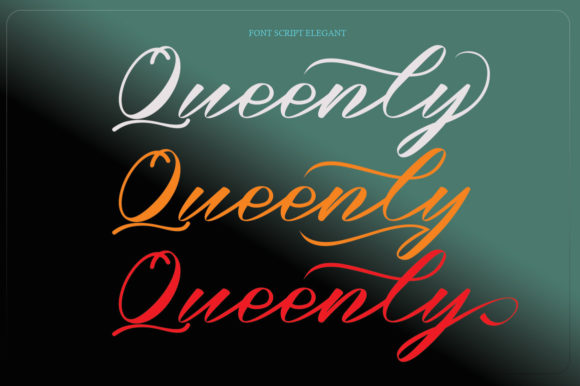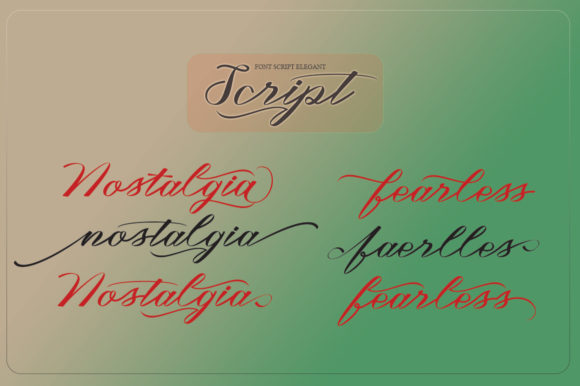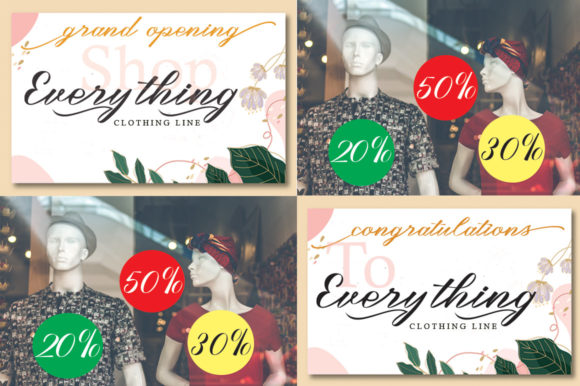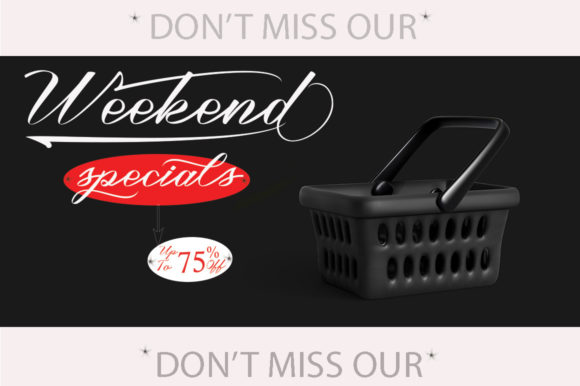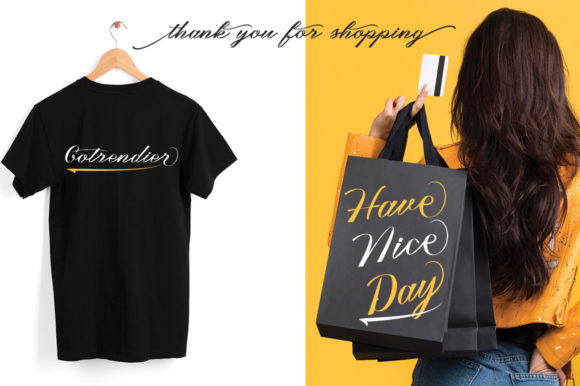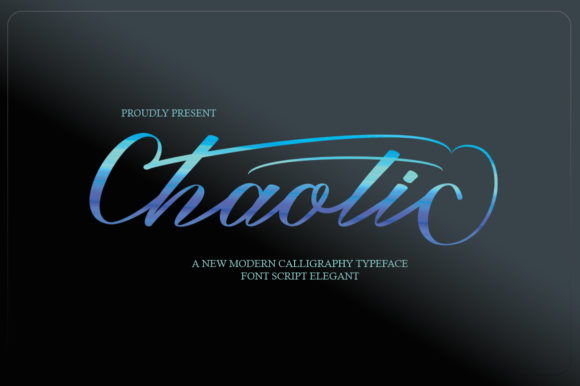
Introducing Chaotic Font: Add a Touch of Whimsy to Your Designs
Are you tired of using the same old fonts in your designs? Do you want to add a touch of magic and whimsy to your creations? Look no further than Chaotic Font, a chic and trendy handwritten font that’s sure to transport your designs to a world of wonder.
What is Chaotic Font?
Chaotic Font is a modern yet whimsical handwritten font that’s perfect for designers and crafters who want to add a dash of personality to their work. With its unique and playful style, this font is sure to make your designs stand out from the crowd.
One of the best things about Chaotic Font is its versatility. Whether you’re creating a logo, a poster, a social media graphic, or a digital journal page, this font is sure to add a touch of magic to your design.
Features of Chaotic Font
So, what makes Chaotic Font so special? Here are just a few of its key features:
- Modern yet whimsical style: Chaotic Font has a unique and playful style that’s perfect for designers who want to add a touch of personality to their work.
- PUA encoded: This font is PUA (Private Use Area) encoded, which means you can access all glyphs and swashes with ease. This makes it easy to use and customize the font to suit your needs.
- Handwritten style: Chaotic Font has a beautiful handwritten style that’s perfect for creating unique and personalized designs.
Why Use Chaotic Font?
So, why should you use Chaotic Font in your designs? Here are just a few reasons:
- Add a touch of whimsy: Chaotic Font is perfect for designers who want to add a touch of magic and whimsy to their designs. Whether you’re creating a children’s book, a fantasy-themed poster, or a social media graphic, this font is sure to delight.
- Stand out from the crowd: With its unique and playful style, Chaotic Font is sure to make your designs stand out from the crowd. Whether you’re a designer, a crafter, or a small business owner, this font can help you create designs that are truly one-of-a-kind.
- Easily customizable: Because Chaotic Font is PUA encoded, it’s easy to customize the font to suit your needs. You can access all glyphs and swashes with ease, making it easy to create unique and personalized designs.
How to Use Chaotic Font
Using Chaotic Font is easy! Here are just a few tips to get you started:
- Pair it with other fonts: Chaotic Font pairs well with a variety of other fonts, including sans serif fonts, script fonts, and serif fonts. Experiment with different pairings to find the one that works best for your design.
- Use it for headings and titles: Chaotic Font is perfect for headings and titles, where its playful and whimsical style can really shine.
- Add swashes and glyphs: Because Chaotic Font is PUA encoded, you can easily add swashes and glyphs to your design. This can add an extra touch of personality and whimsy to your work.
| Font Name | Chaotic Font |
| Author | JoeeCreative |
In conclusion, Chaotic Font is a chic and trendy handwritten font that’s perfect for designers and crafters who want to add a touch of magic and whimsy to their designs. With its modern yet whimsical style, PUA encoding, and handwritten style, this font is sure to make your designs stand out from the crowd.
Whether you’re creating a logo, a poster, a social media graphic, or a digital journal page, Chaotic Font is the perfect choice. So why not give it a try and see the magic for yourself?